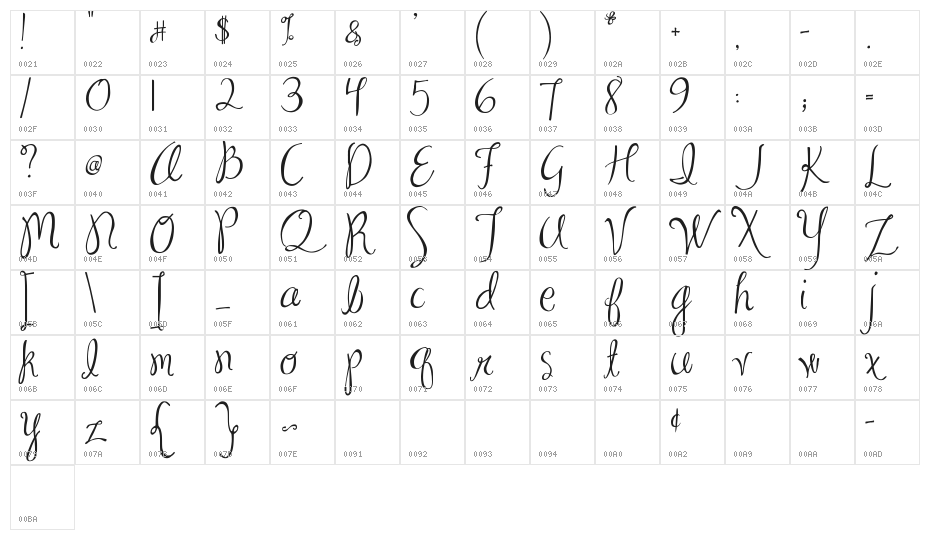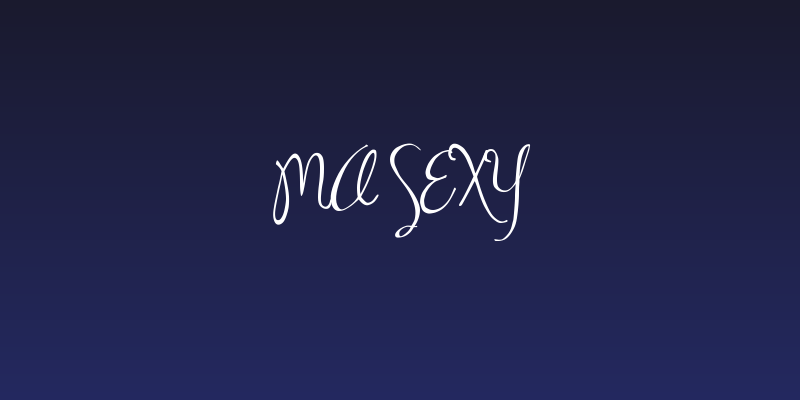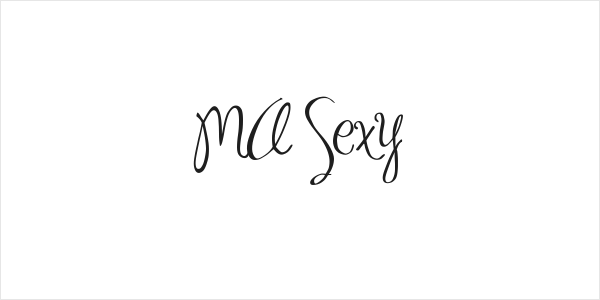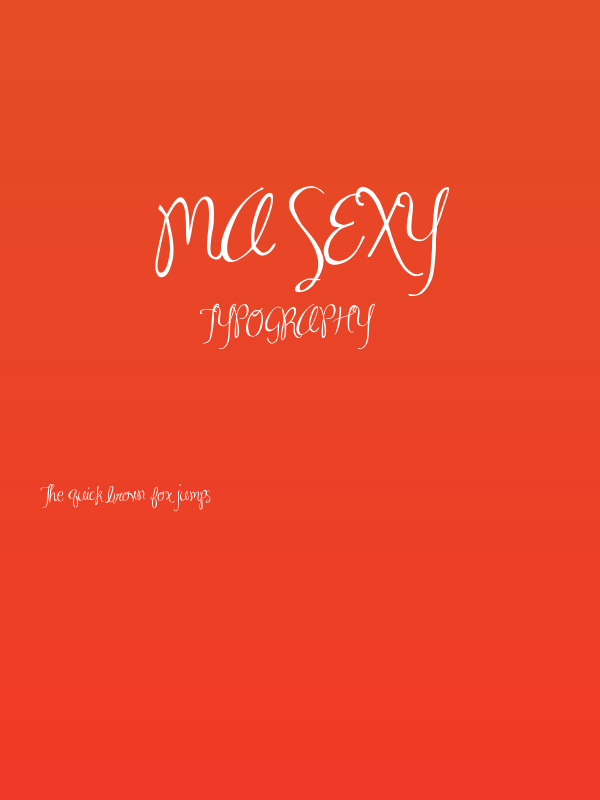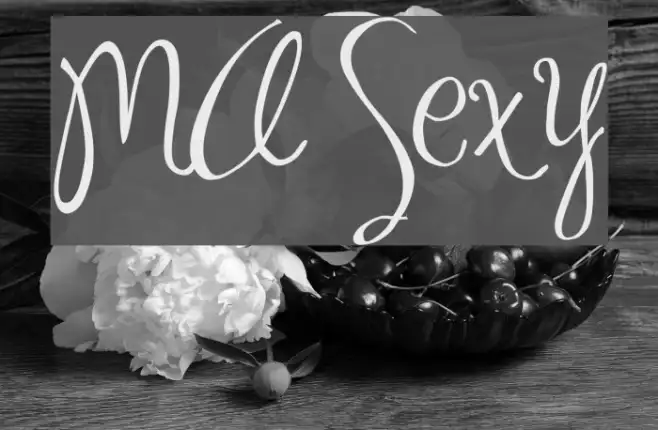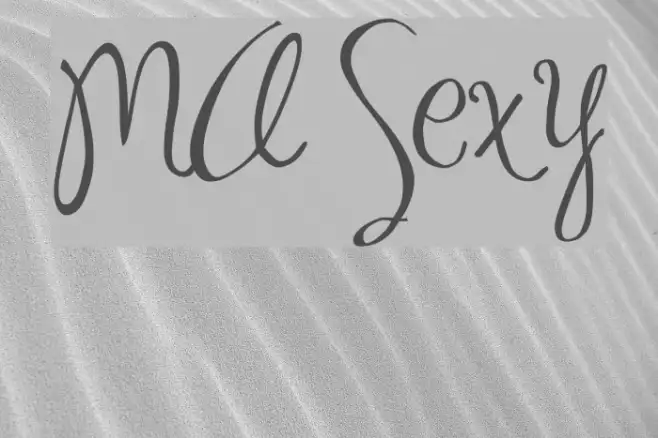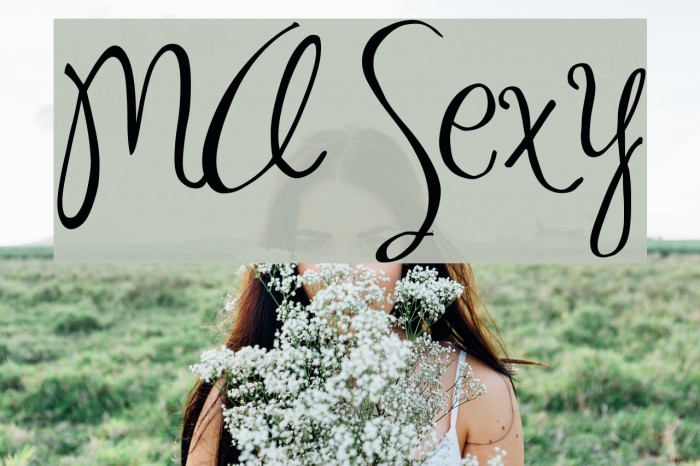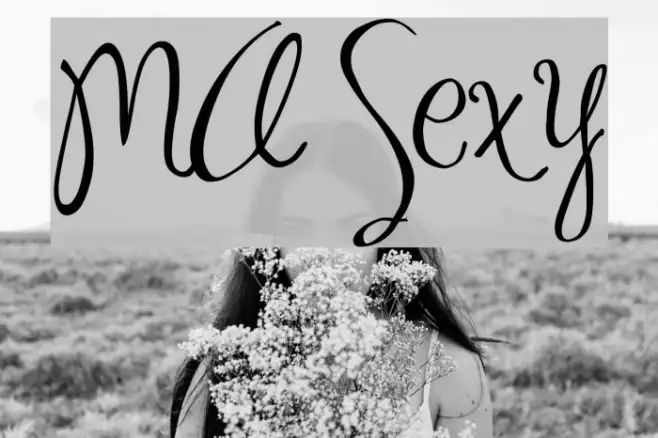
MA Sexy Font
MA Sexy Description
This font exudes a playful and elegant vibe with its flowing, cursive style. The characters are interconnected, creating a sense of continuity and movement. The uppercase letters are tall and slender, while the lowercase letters maintain a consistent flow, enhancing readability. The numerals are uniquely styled, complementing the overall aesthetic. Special characters are creatively integrated, adding to the font's charm. This font's design is both artistic and functional, making it suitable for various creative applications.
MA-SEXY UPPERCASE
MA-SEXY LOWERCASE
MA-SEXY OTHER CHARS
| Proposed Projects | Ideal for wedding invitations, greeting cards, branding, and creative design projects. |